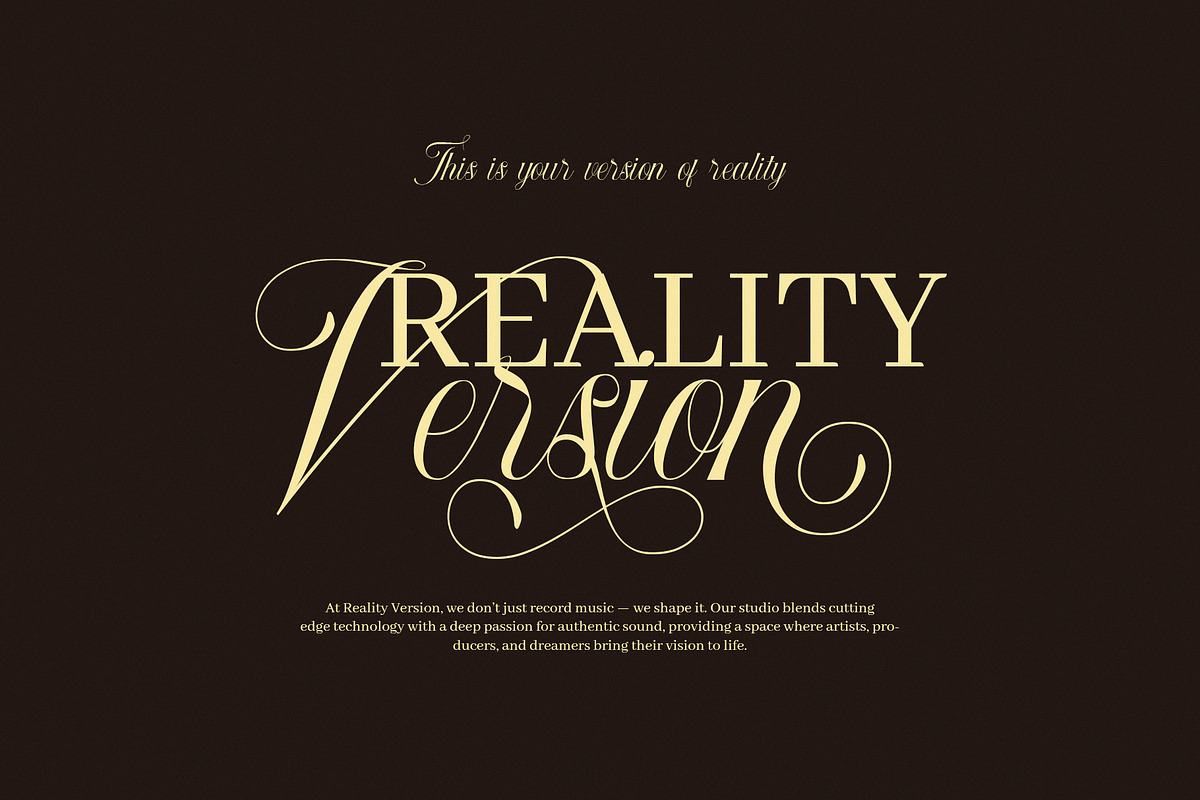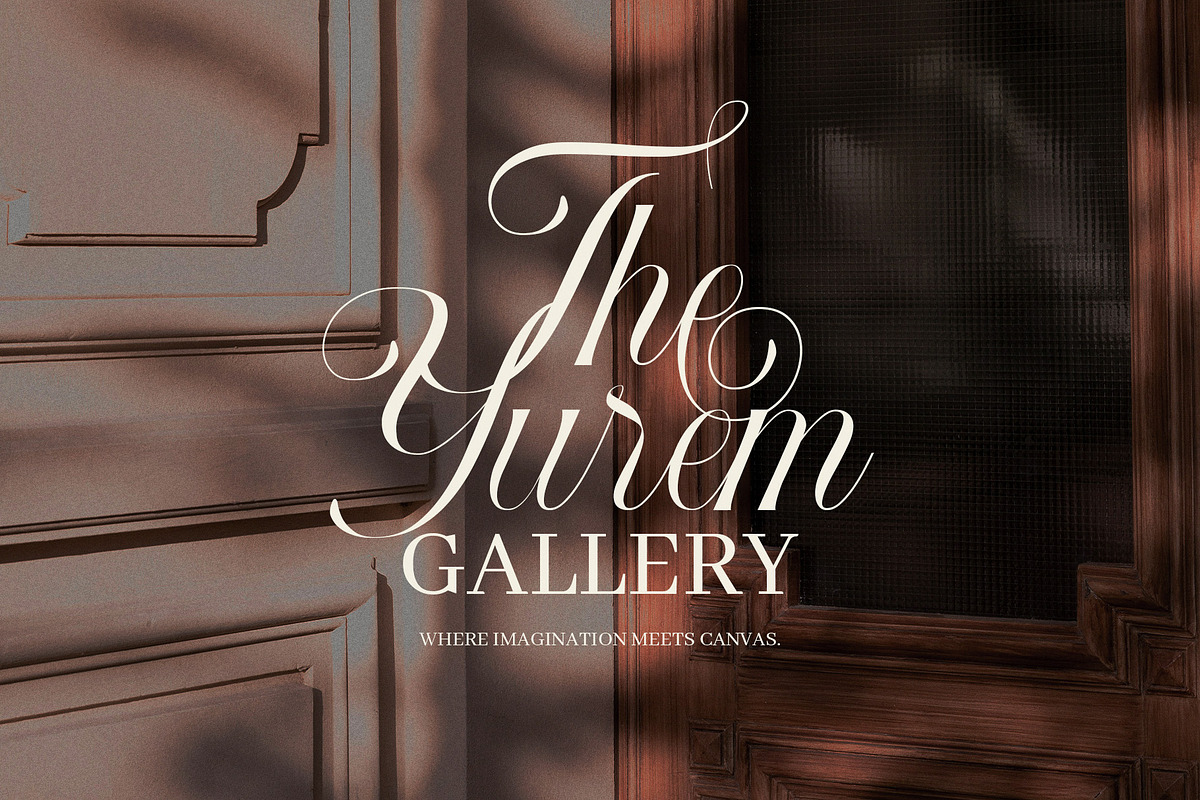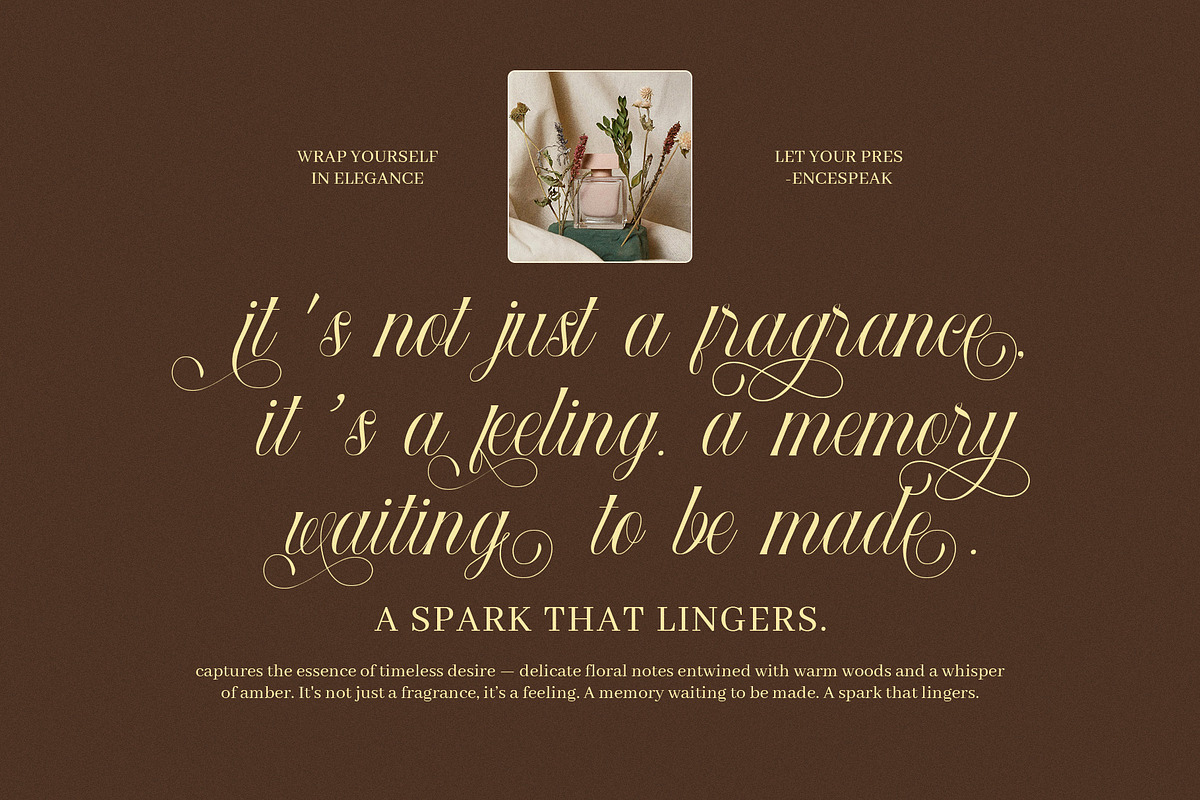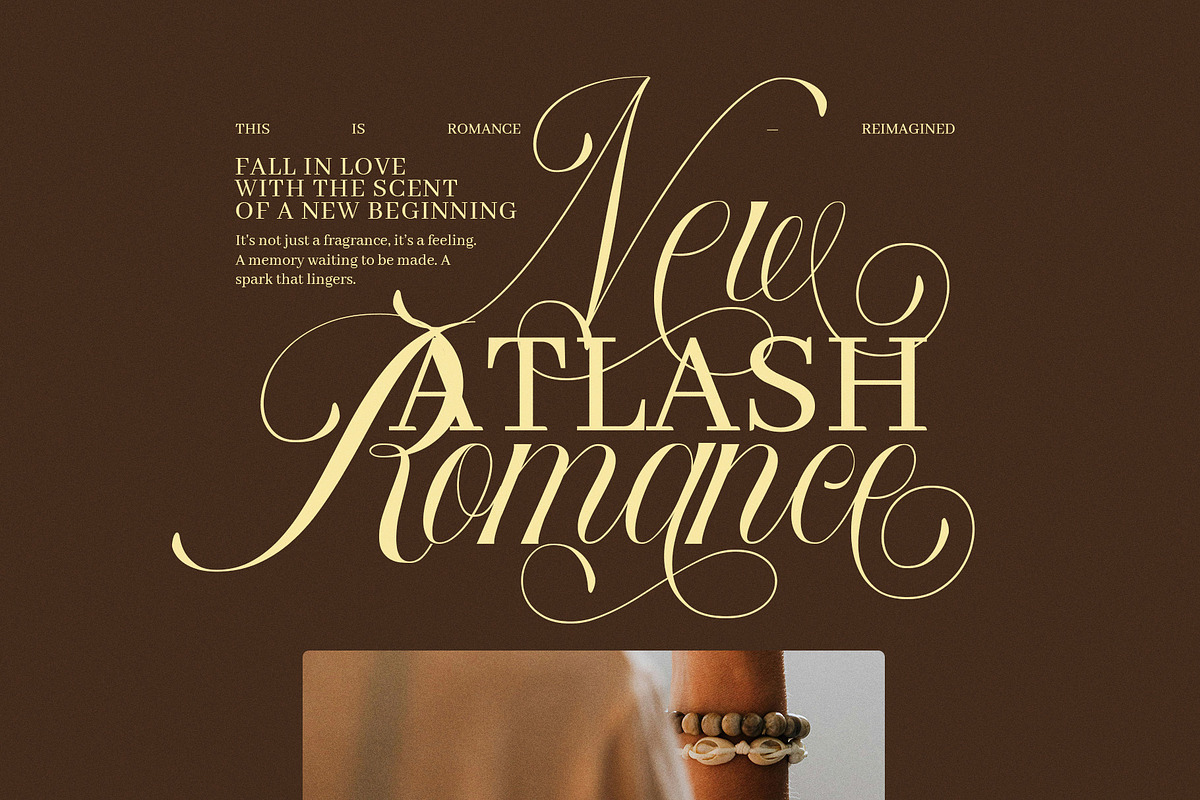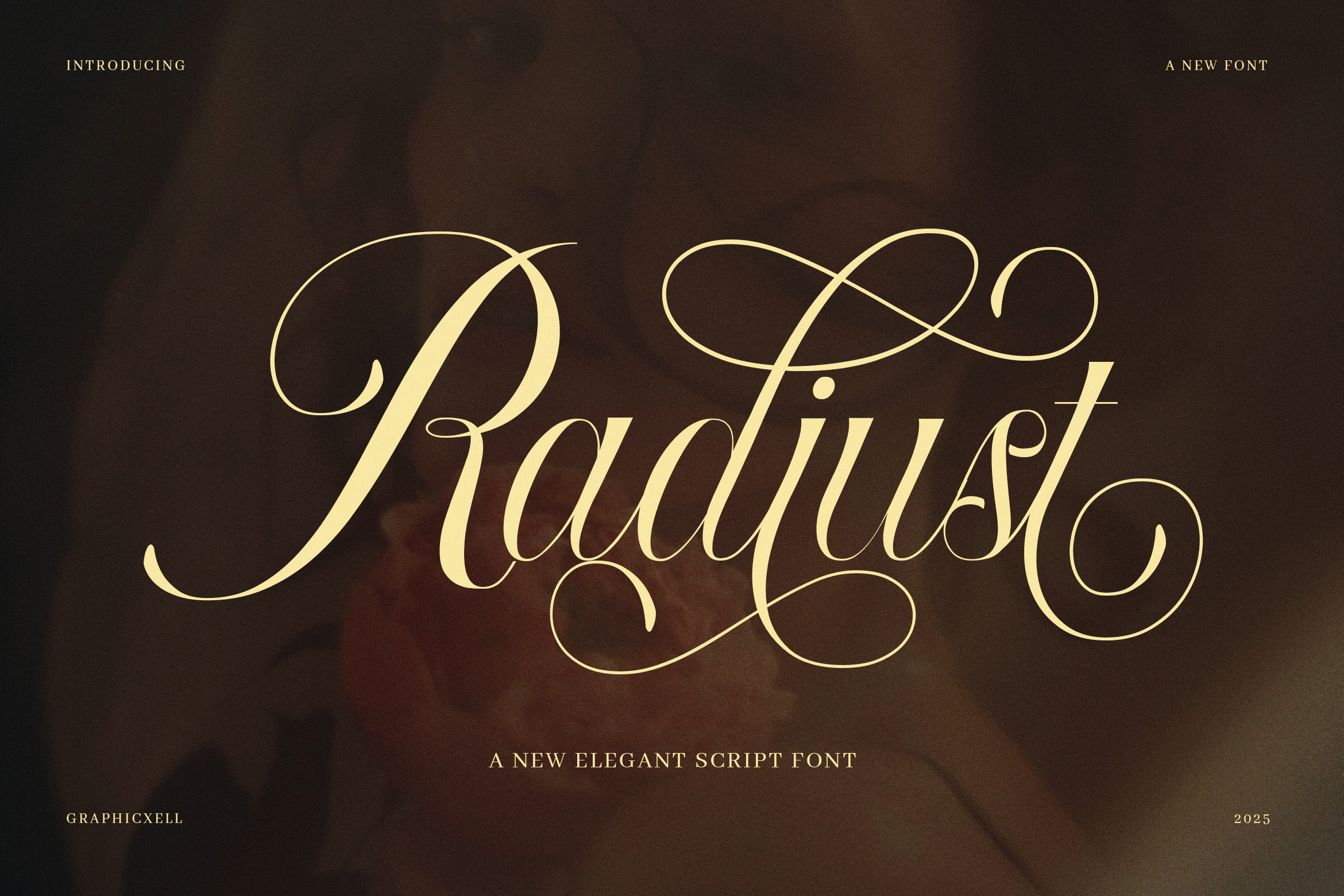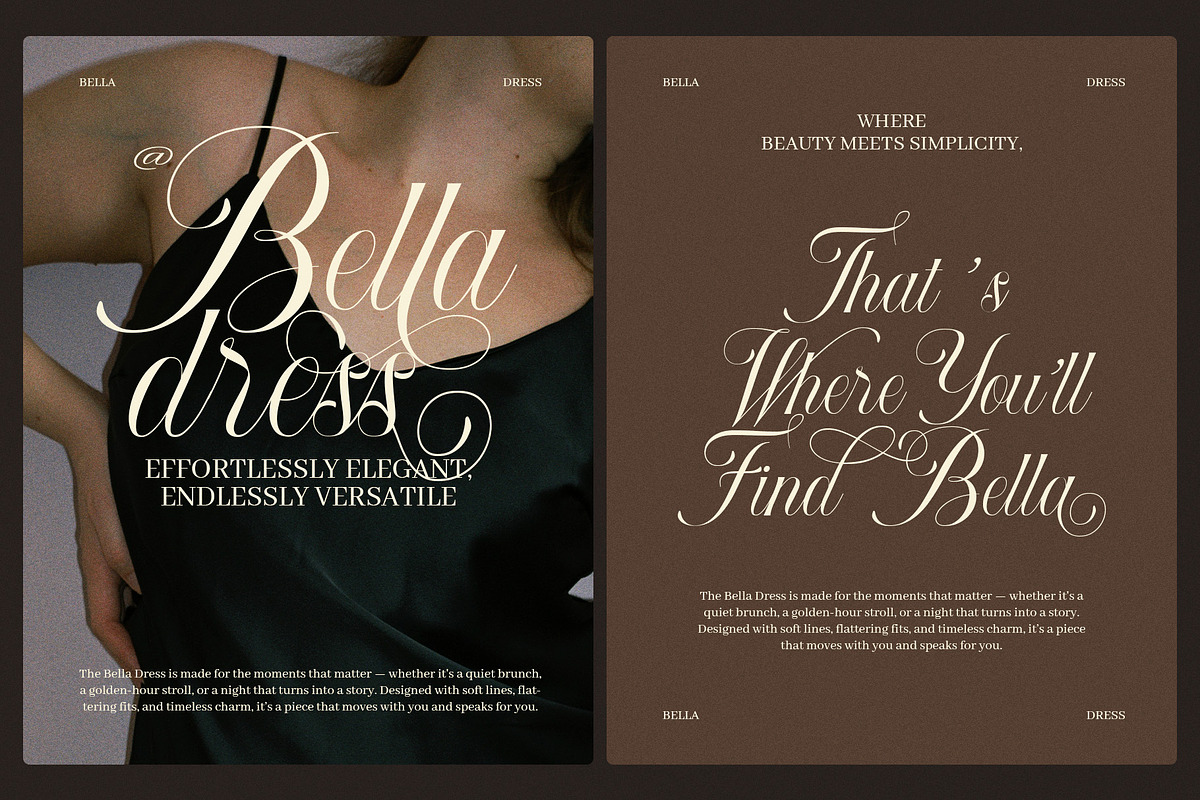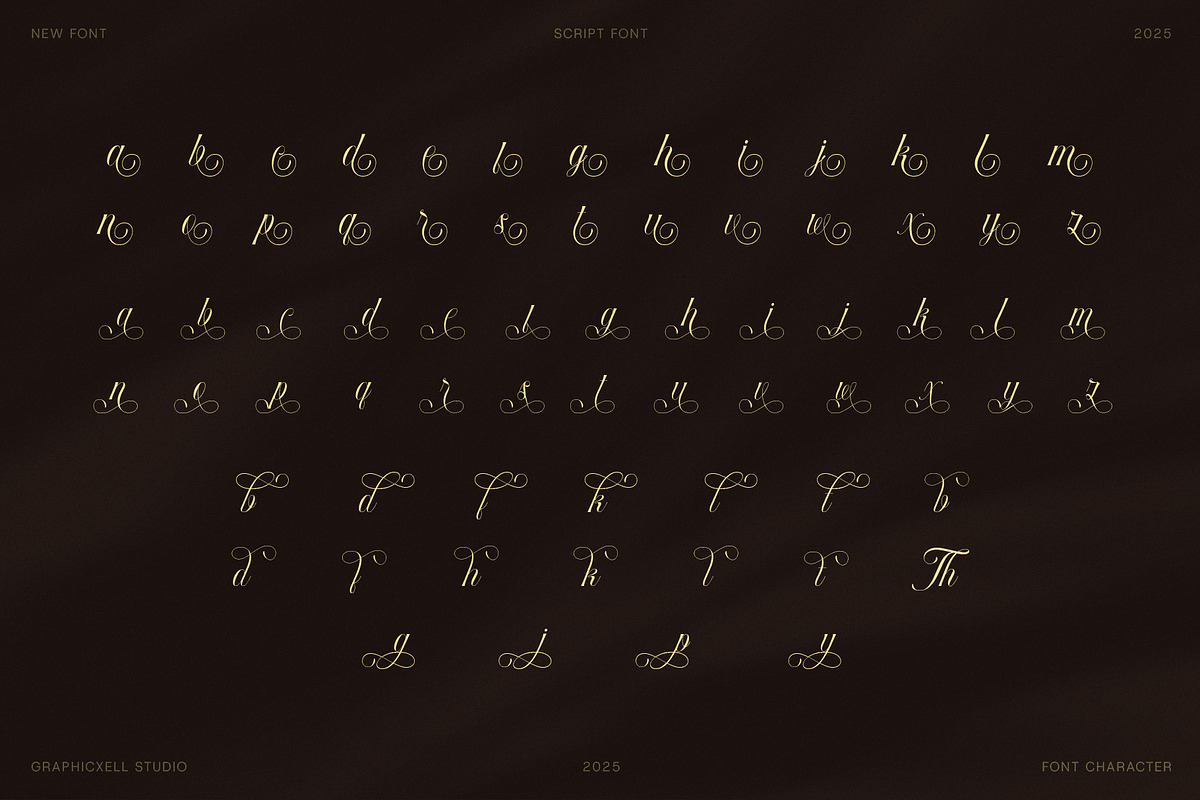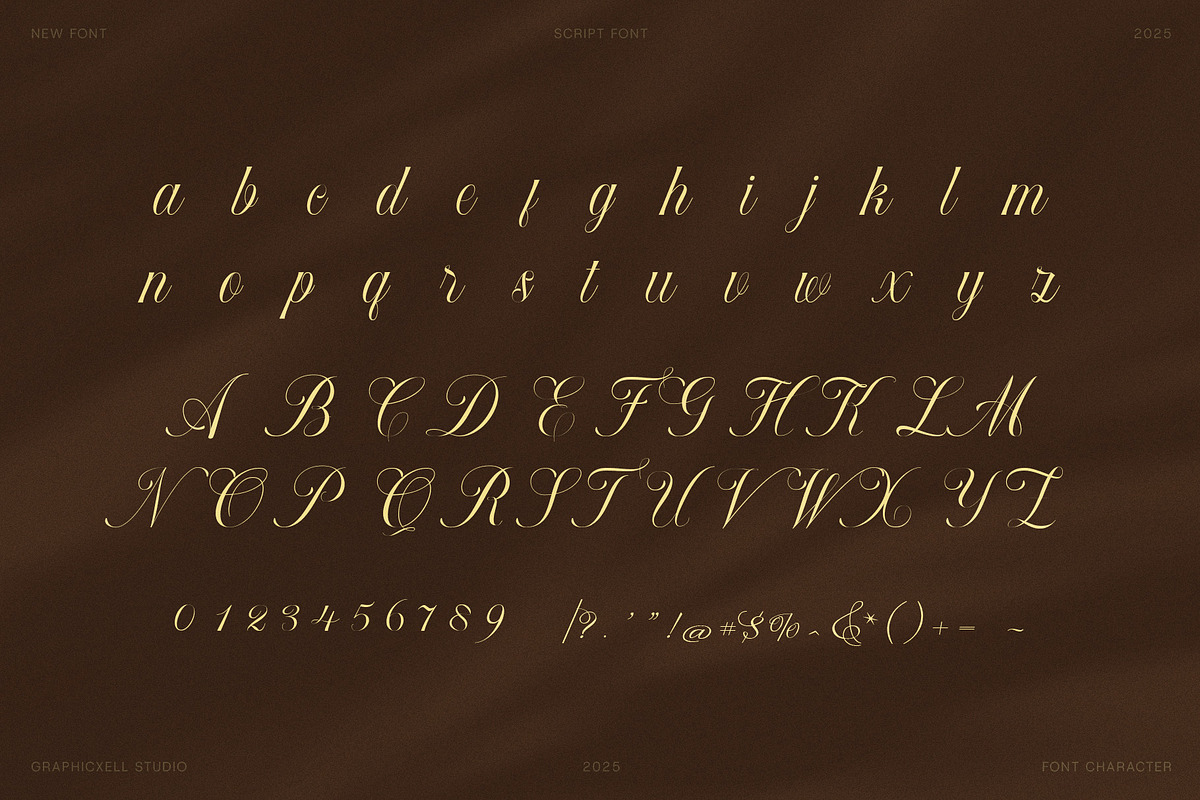
Radiust Luxury Swash Script Font
Radiust is a luxury swash script font that blends elegance, romance, and timeless charm. Each stroke moves with soft rhythm, and each curve forms a graceful silhouette that feels expressive and refined. Because of its poetic shape and delicate flow, Radiust adds emotional warmth and sophistication to any visual composition.
The letterforms are tall and airy, giving the text a classic and high-end feel. Meanwhile, the sweeping swashes allow you to create dramatic and memorable word shapes. You can use long flourishes for a statement look, or select subtle alternates for a simpler, modern finish. Additionally, Radiust is crafted to remain readable, even with its ornamental style, making it suitable for both headlines and logo marks.
This font fits beautifully within lifestyle, fashion, perfume, bridal, and editorial design themes. When paired with a serif typeface, it creates a striking balance between refinement and bold personality. Because of its graceful structure, Radiust works especially well in branding that values elegance and emotional presence.
Use Radiust to tell stories that feel intimate and meaningful. It can highlight a brand’s quiet confidence, evoke nostalgic romance, or express soft luxury in packaging and identity design. Moreover, the alternate sets open space for creativity, allowing each design to feel unique and personalized.
Luxury branding and logo design
Wedding and event stationery
Editorial headlines and magazine design
Perfume, beauty, and skincare packaging
Boutique identity and product labels
Romantic quotes and social media layouts
In short, Radiust is a script font designed to elevate. It speaks softly, shines gracefully, and brings every message to life with elegance.